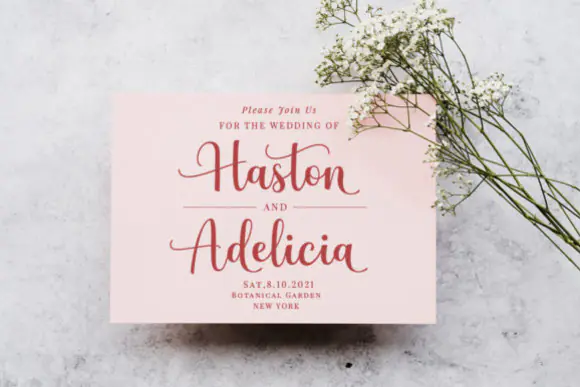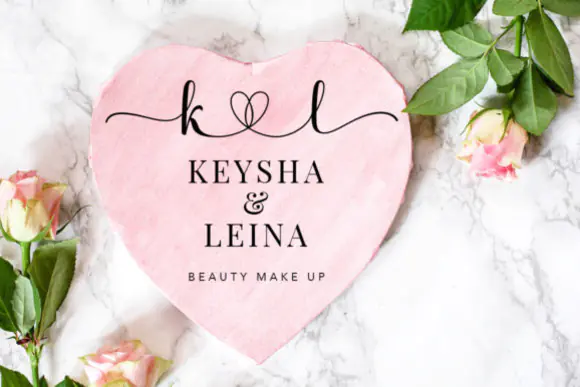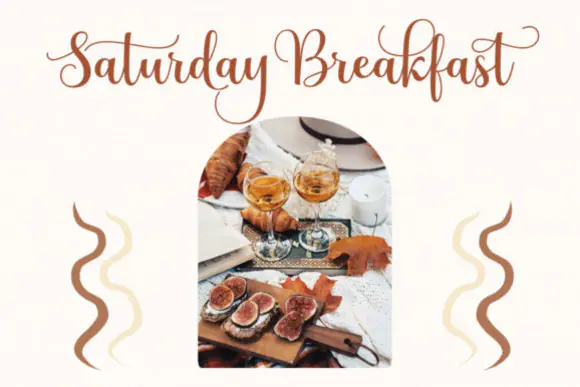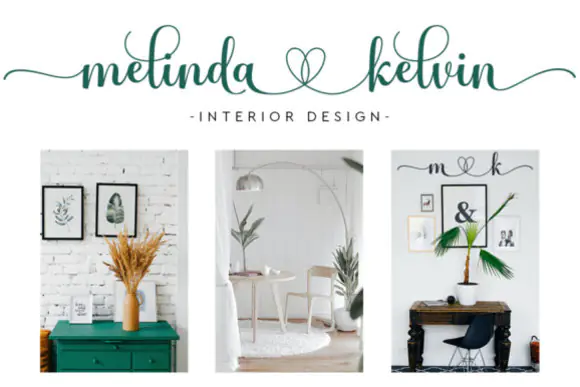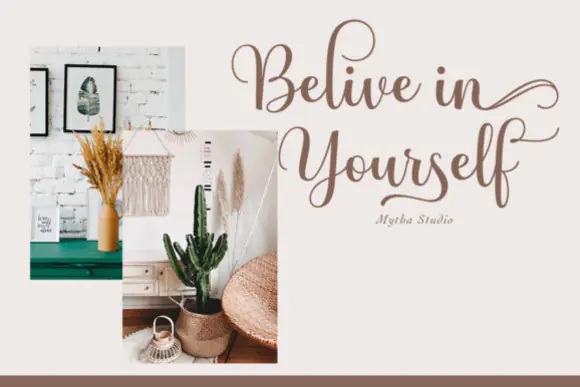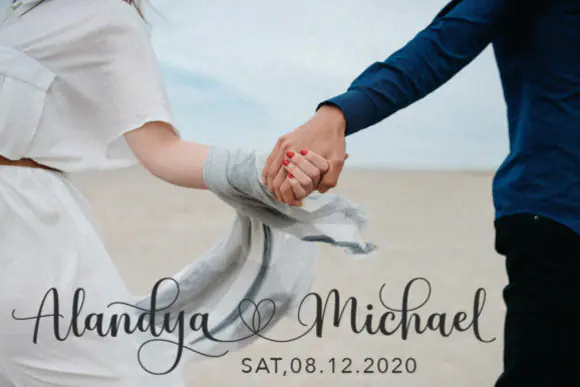
Create beautiful, stylish, and memorable designs with Hey Magnolia Font, an incredibly unique handwritten font made to bring personality and charm to your creative projects. With its natural handwritten look and elegant flow, this font is perfect for designs that need a warm, artistic, and handcrafted feel.
Hey Magnolia Font works beautifully for logos, branding, quote designs, greeting cards, invitations, wedding stationery, social media graphics, product packaging, stickers, mugs, t-shirts, tote bags, wall art, labels, handmade gifts, and digital craft projects.
This font is also PUA encoded, which means you can easily access its glyphs and swashes to create more decorative, personalized, and professional-looking lettering. It is a great choice for Cricut users, crafters, designers, small business owners, and digital product creators who want to take their designs to the next level.
Hey Magnolia Font is a beautiful choice for creating polished, personal, and eye-catching designs with a unique handwritten charm.